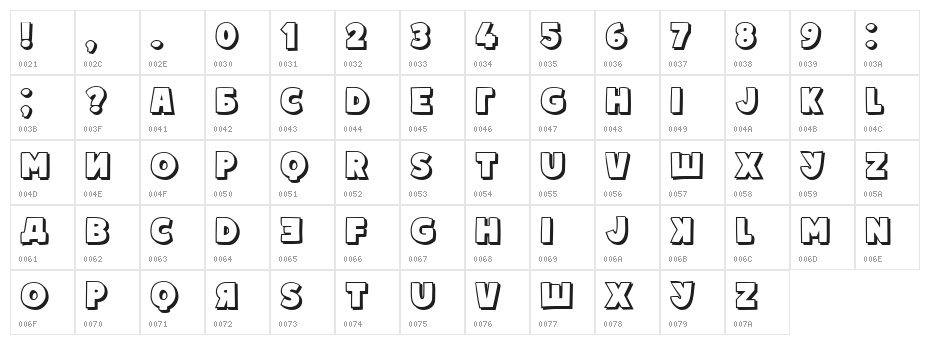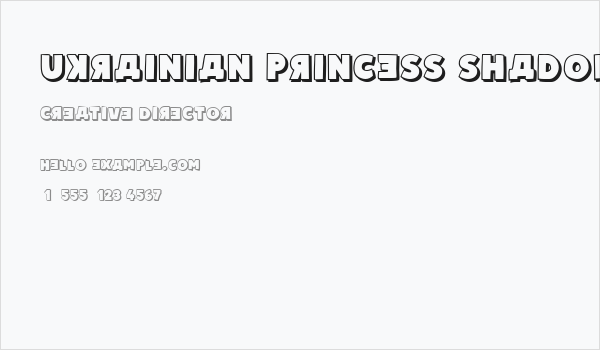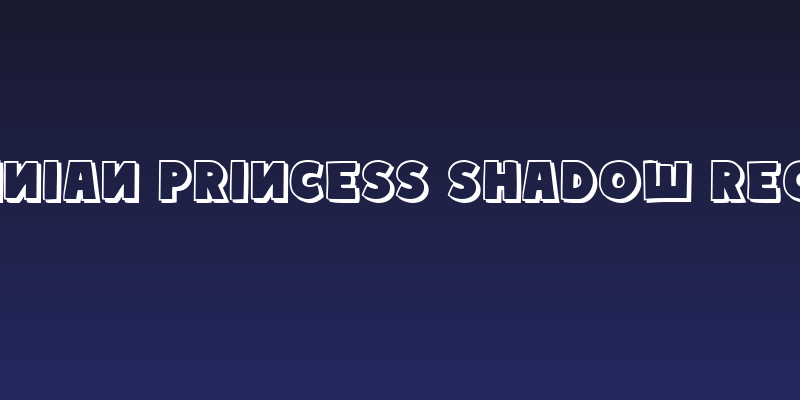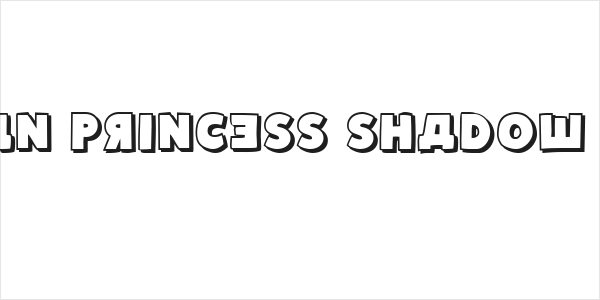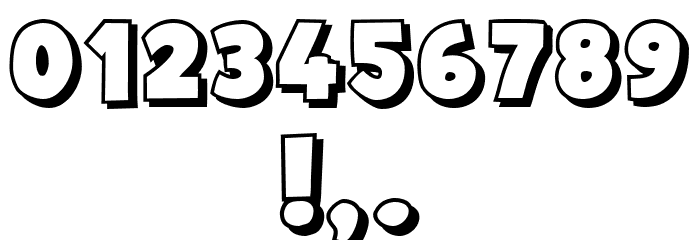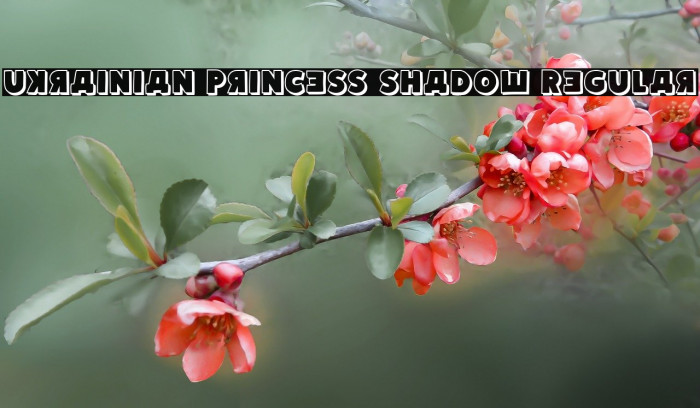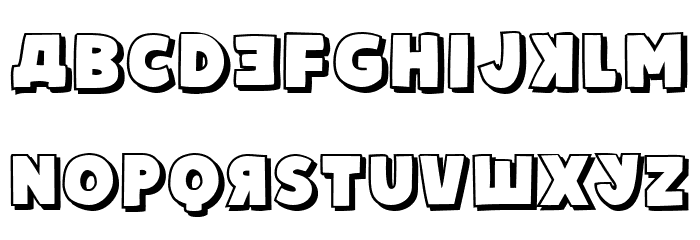
Ukrainian Princess Shadow Regular Font
Ukrainian Princess Shadow Regular Description
This font features bold, playful characters with a shadow effect that adds depth and dimension. The uppercase letters are robust and rounded, giving a sense of fun and approachability. The shadowing is consistent across all characters, enhancing the three-dimensional look. The numbers and special characters maintain the same playful style, making them suitable for a variety of creative projects. The font's design is eye-catching and ideal for uses where a strong visual impact is desired.
| Overall Style | Playful, Decorative |
| Proposed Projects | Ideal for children's book covers, playful branding, posters, and any project requiring a fun and engaging typeface. |